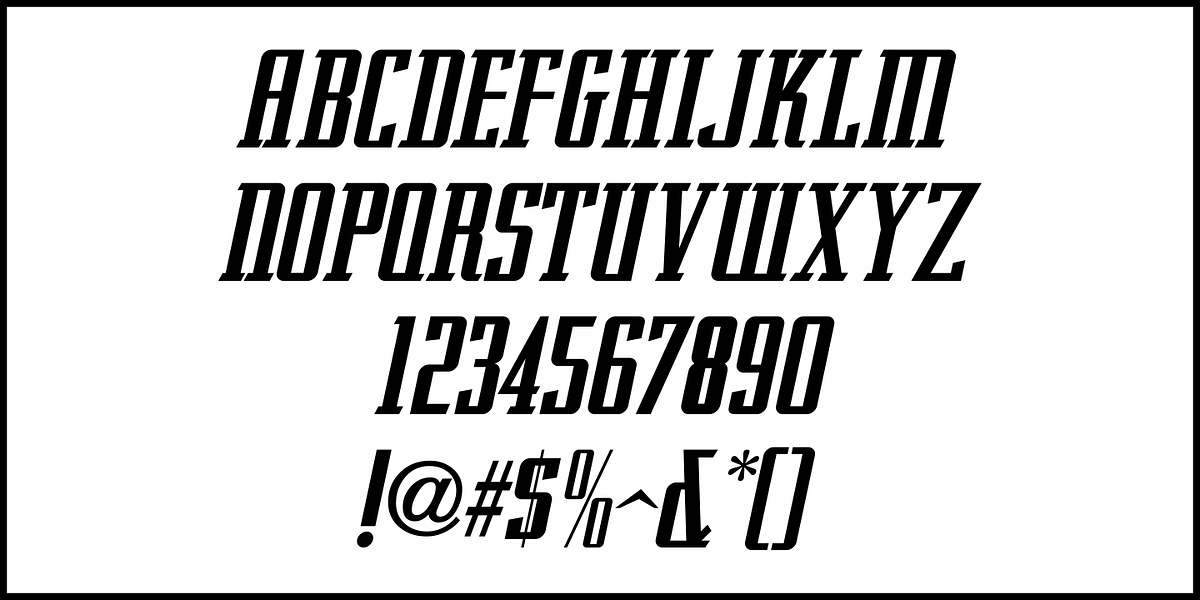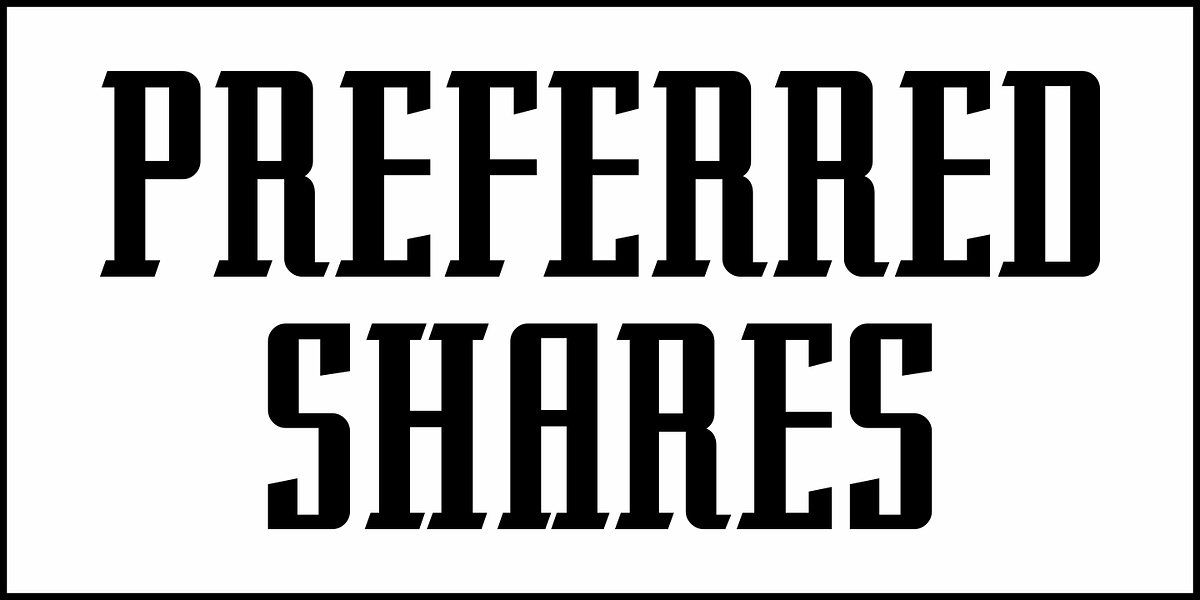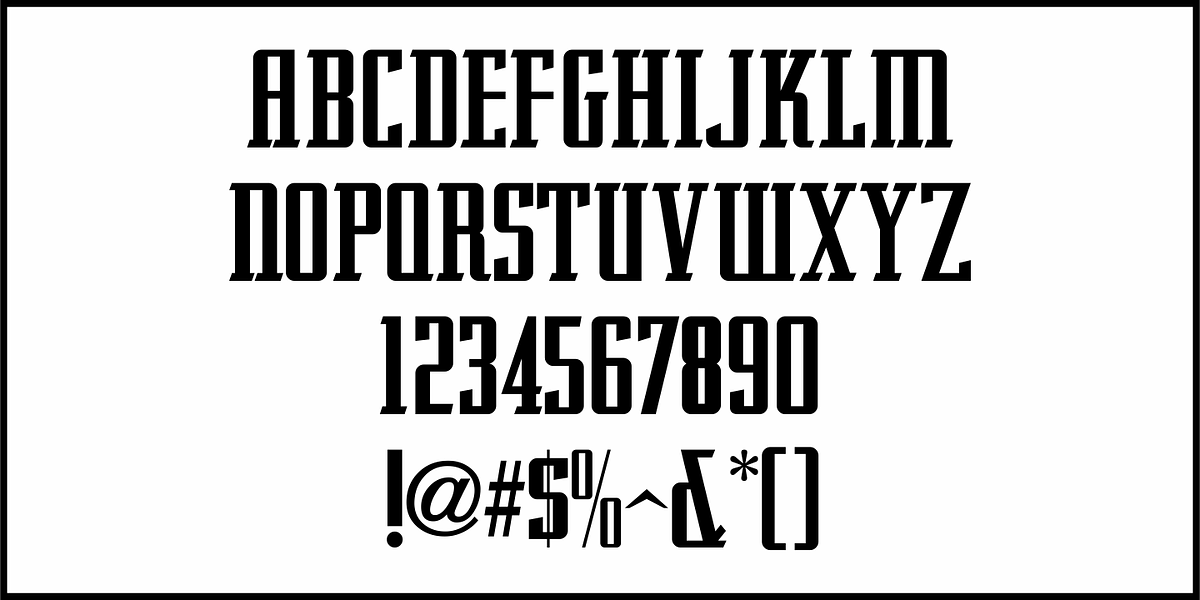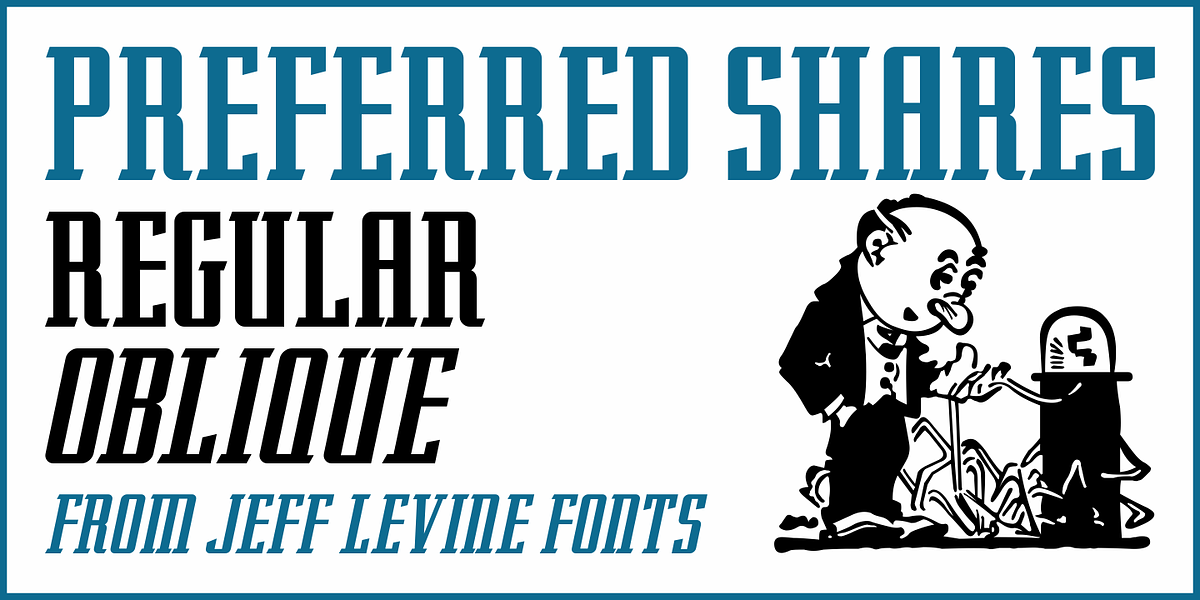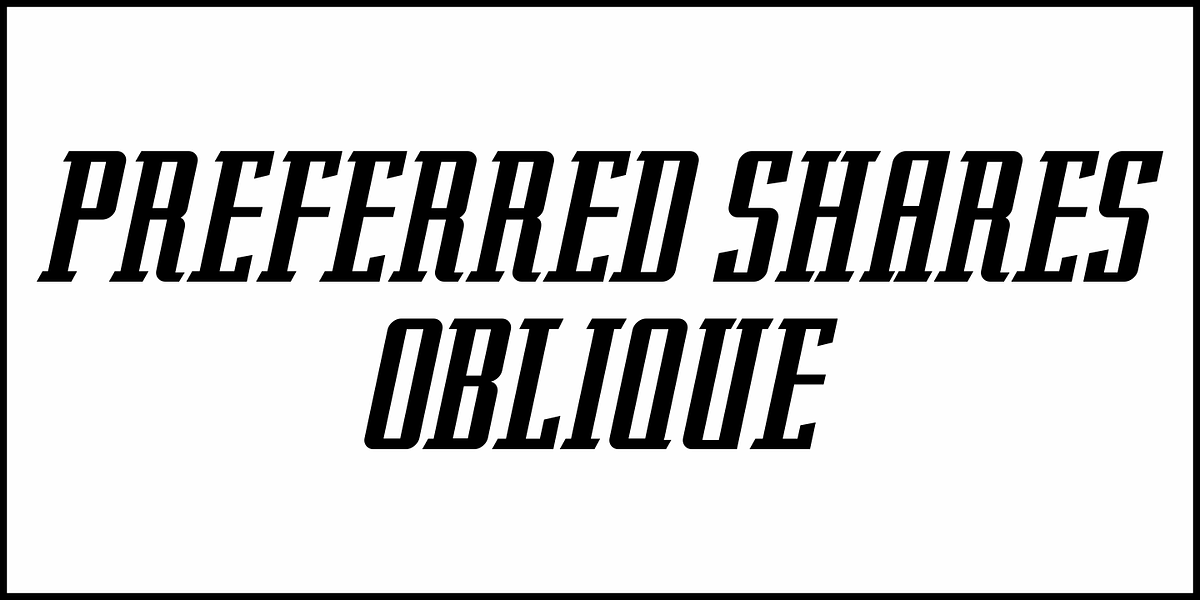
Preferred Shares JNL
A July 9, 1935 trade paper ad for Paramount Pictures’ 1st quarter film releases sported hand lettering with chamfered slab serifs.
This condensed type design is now available as Preferred Shares JNL in both regular and oblique versions.